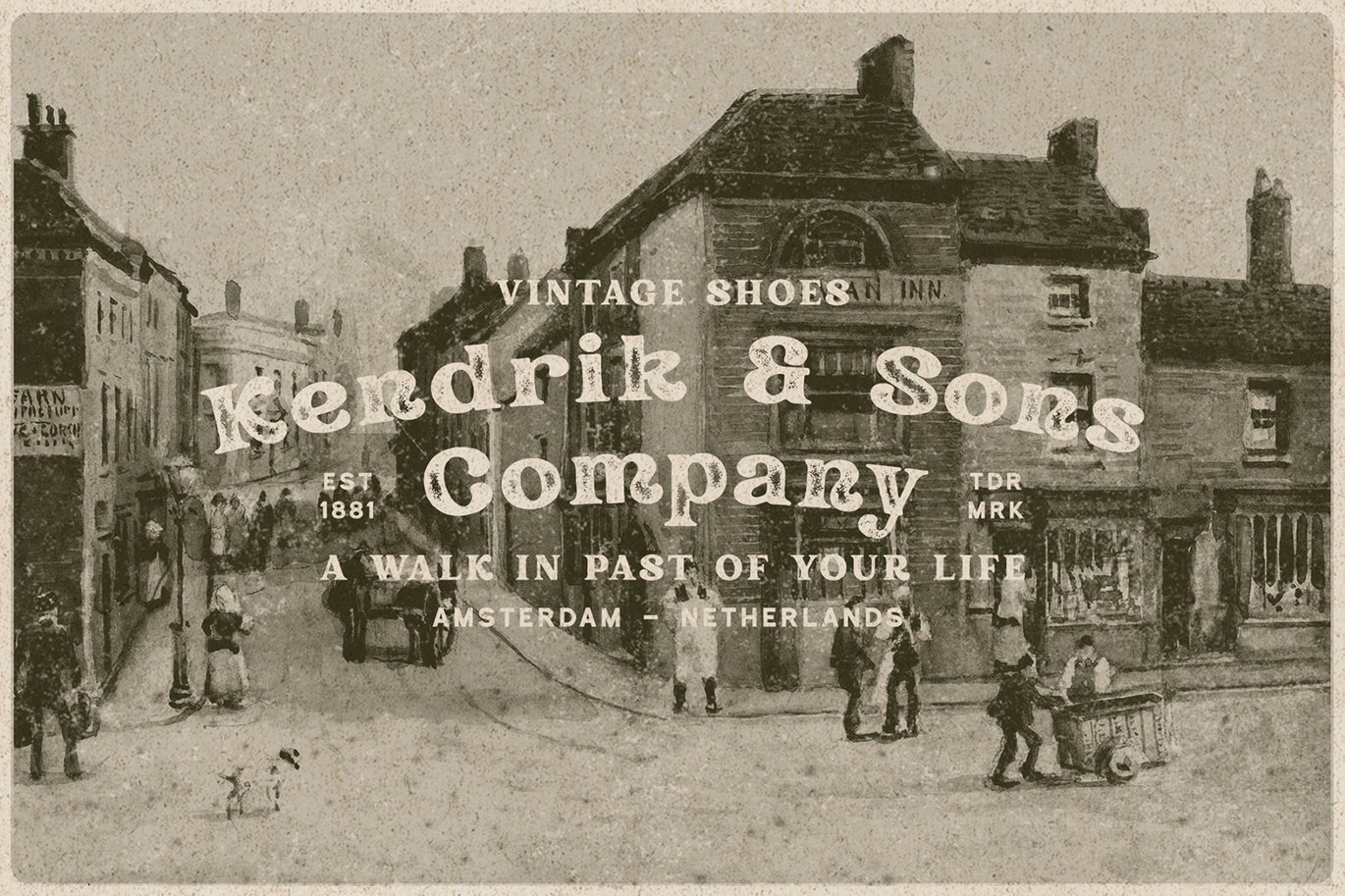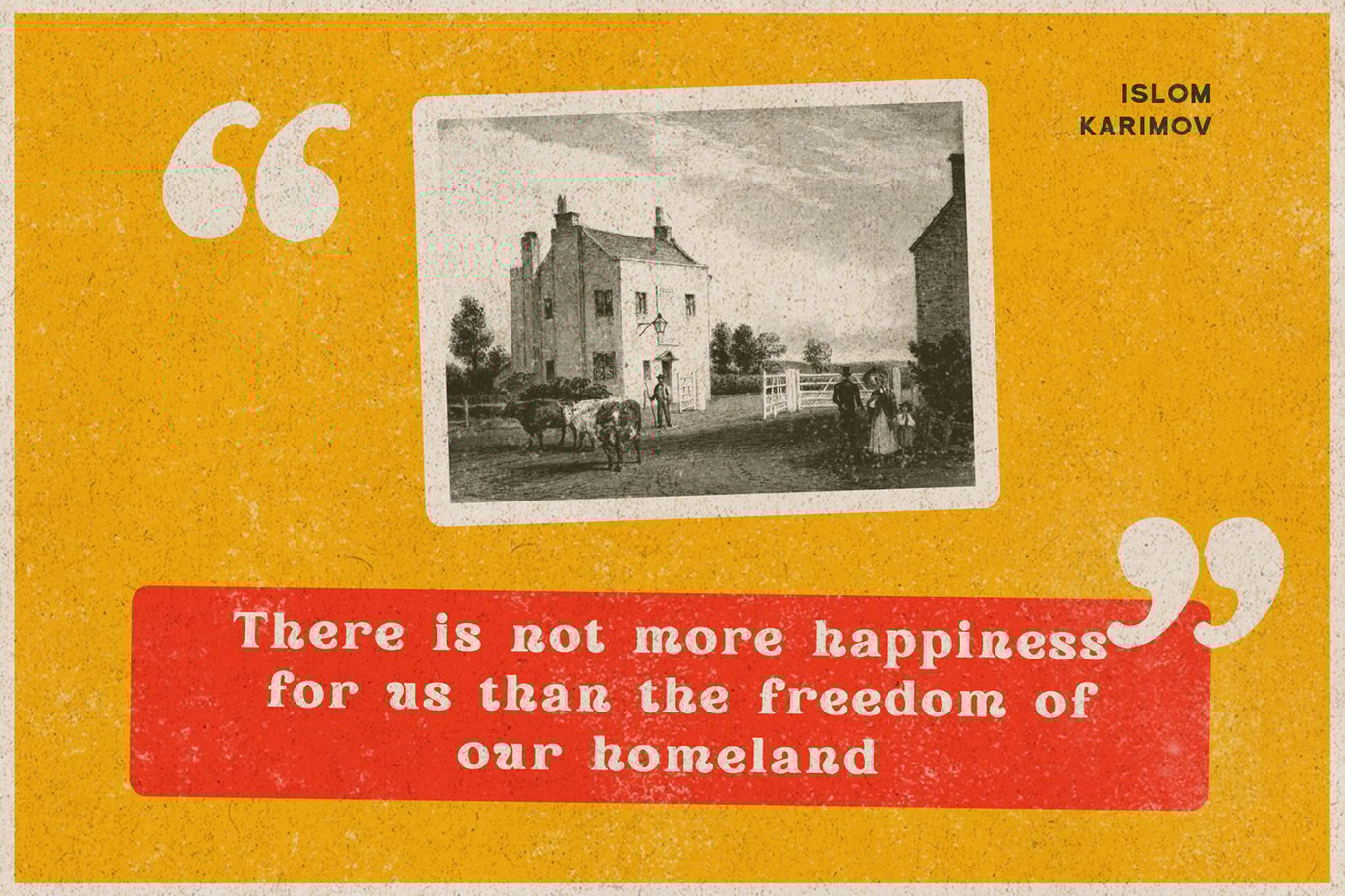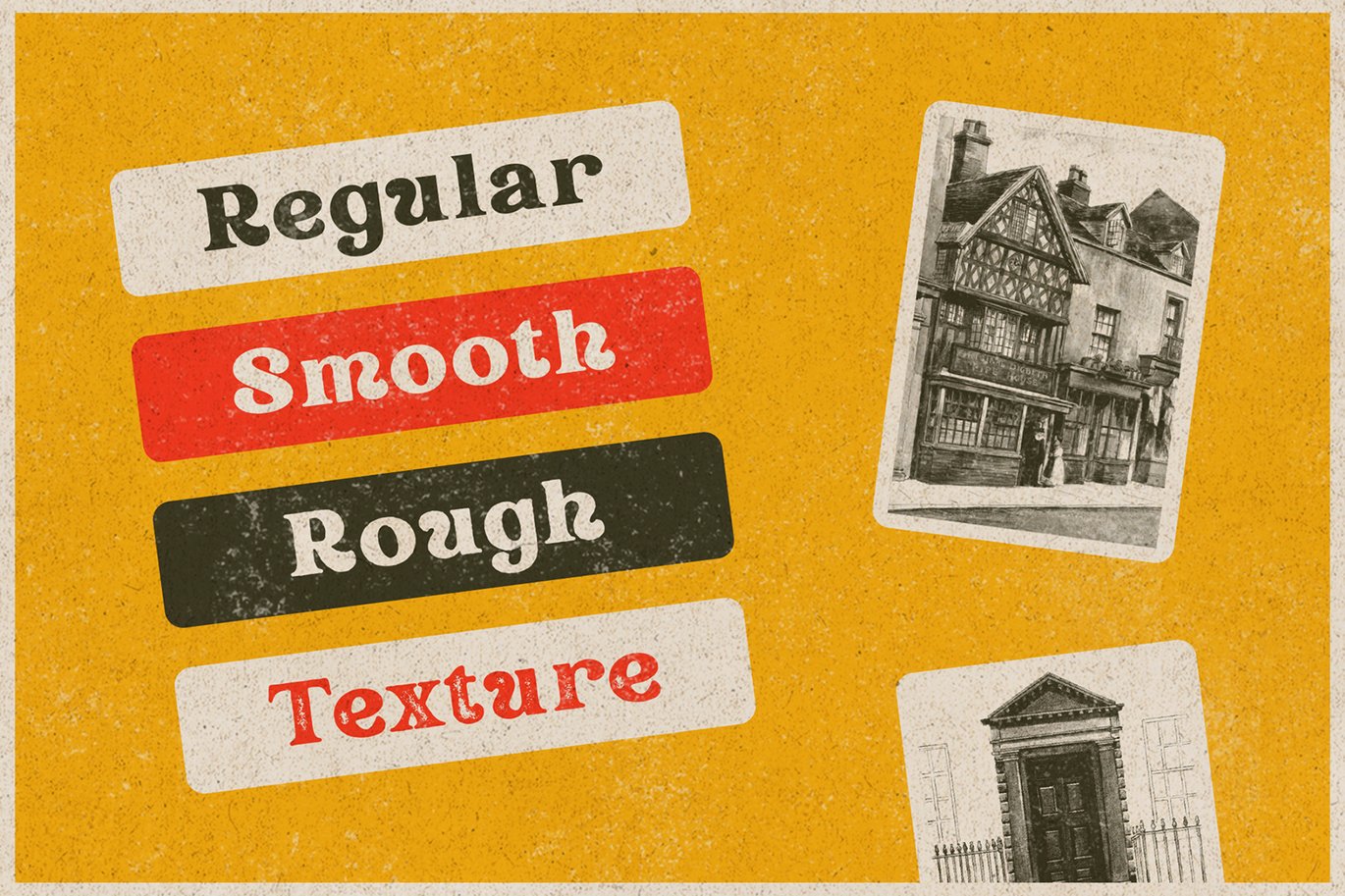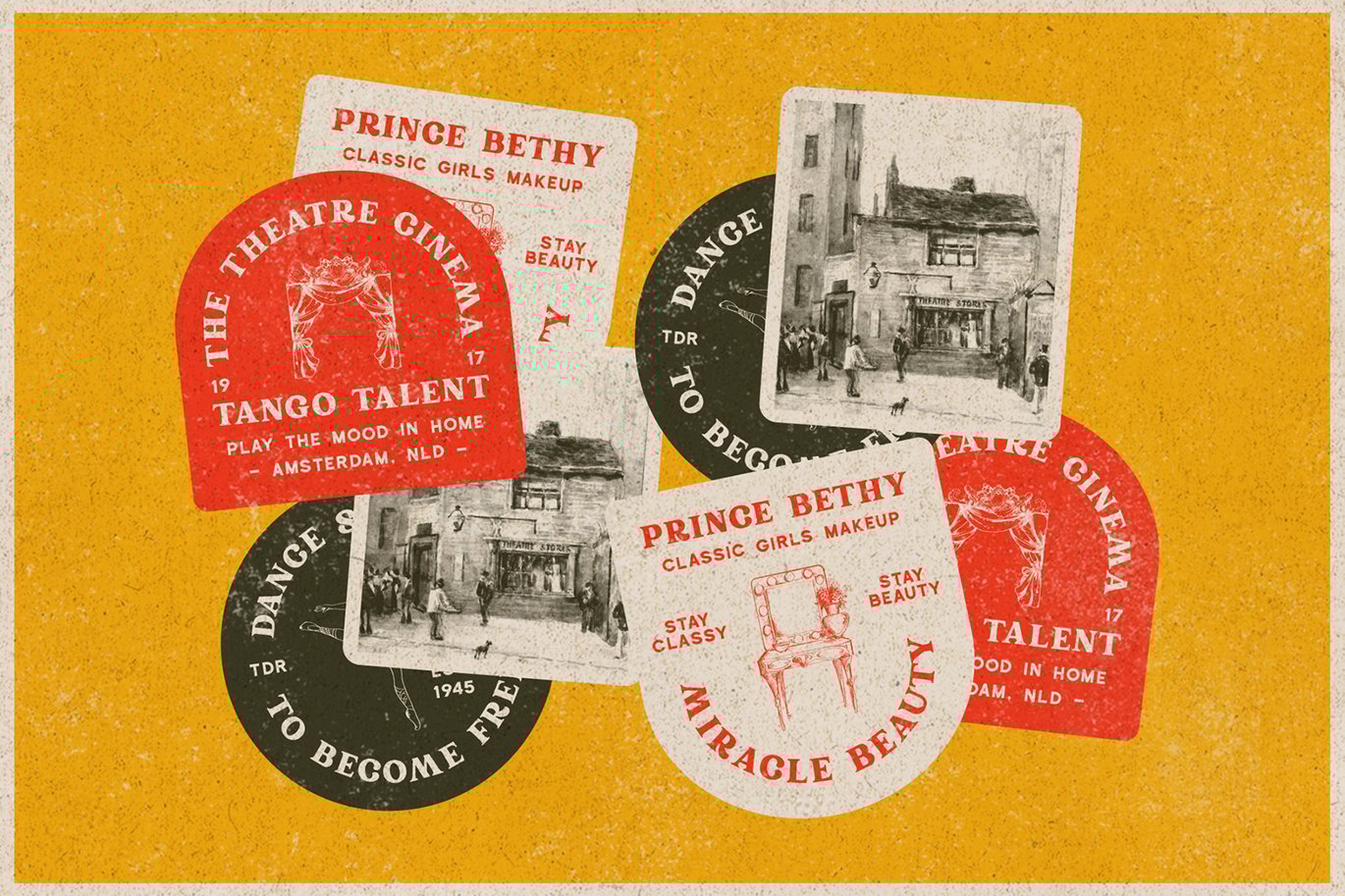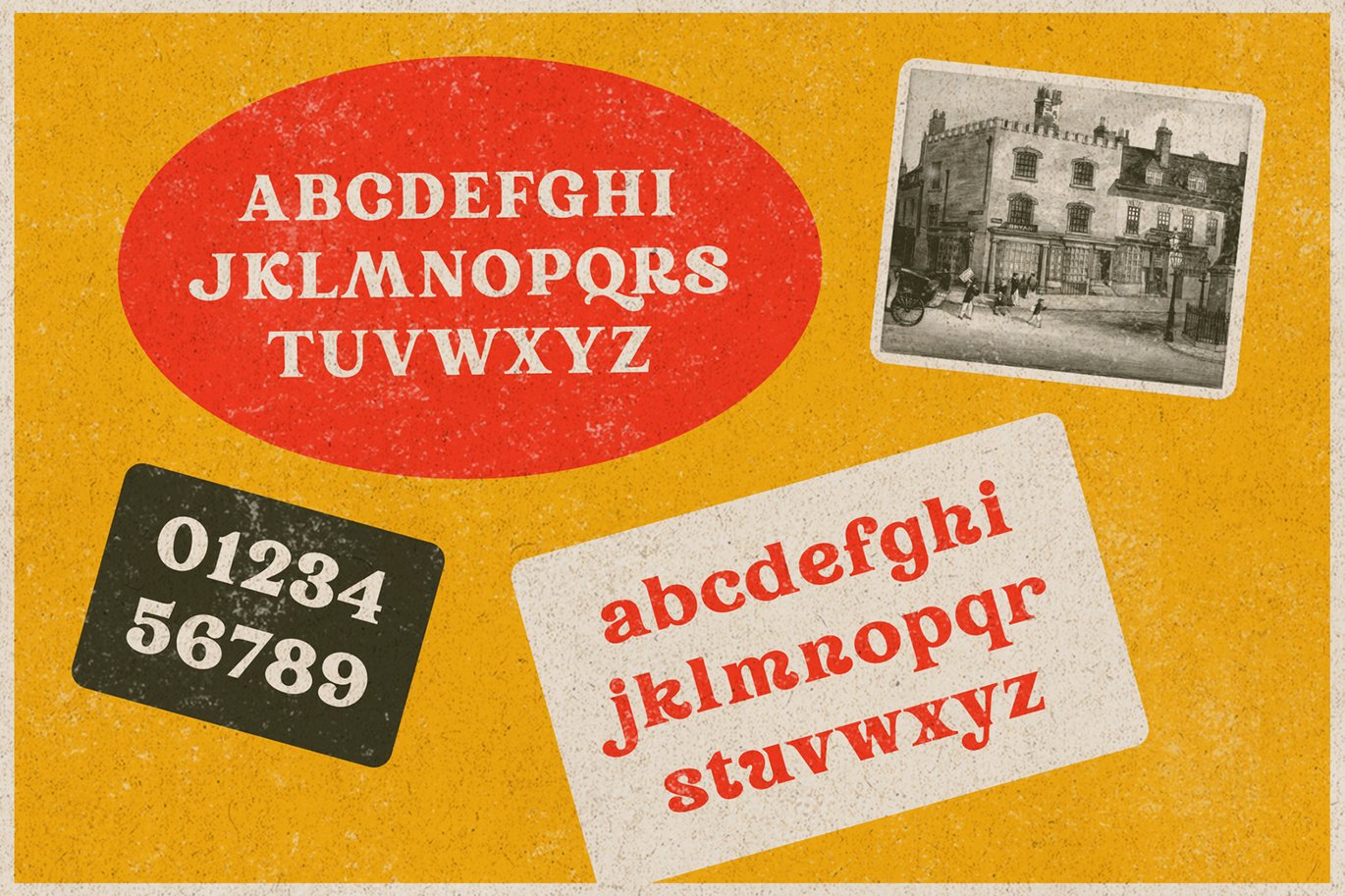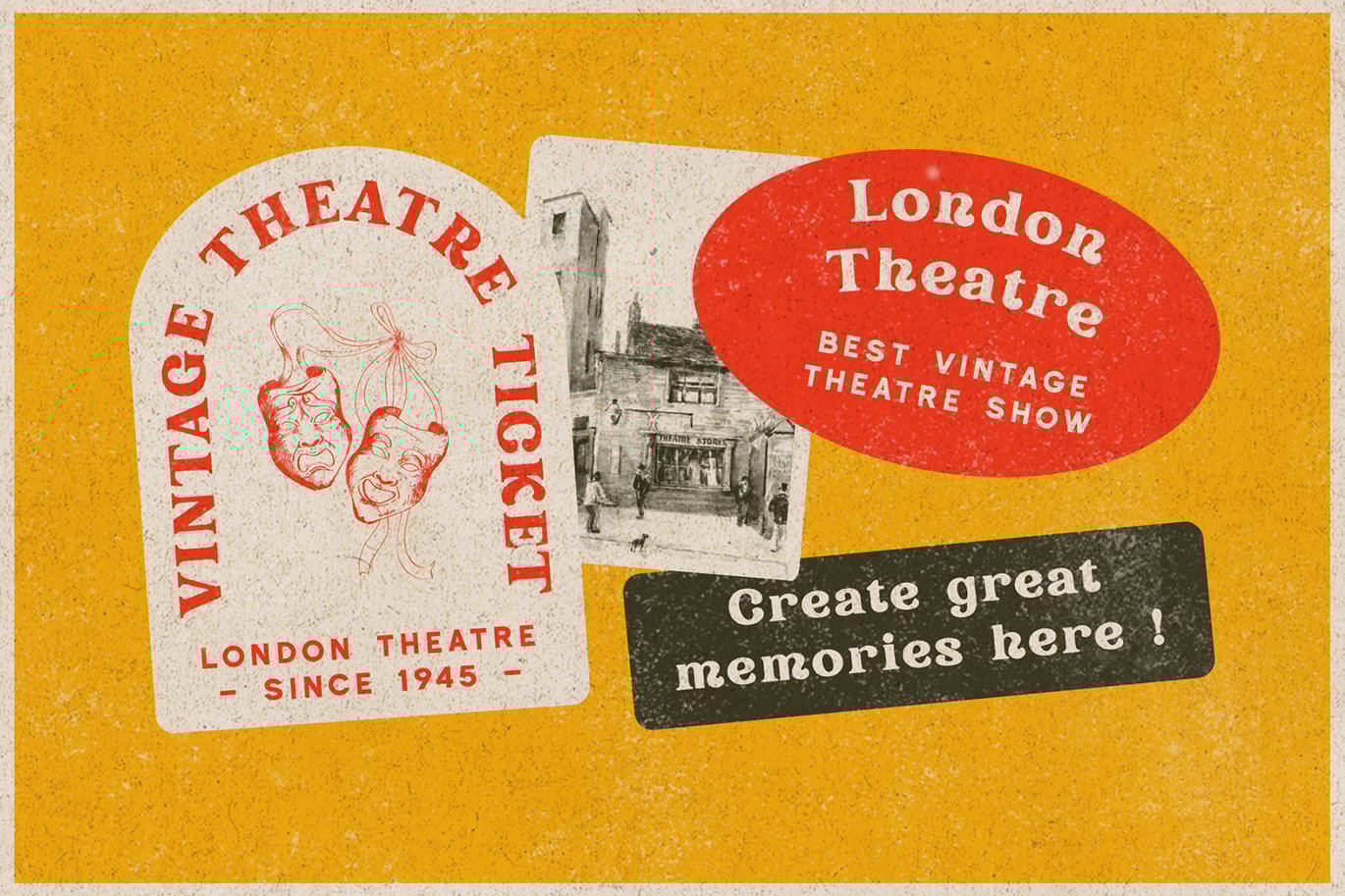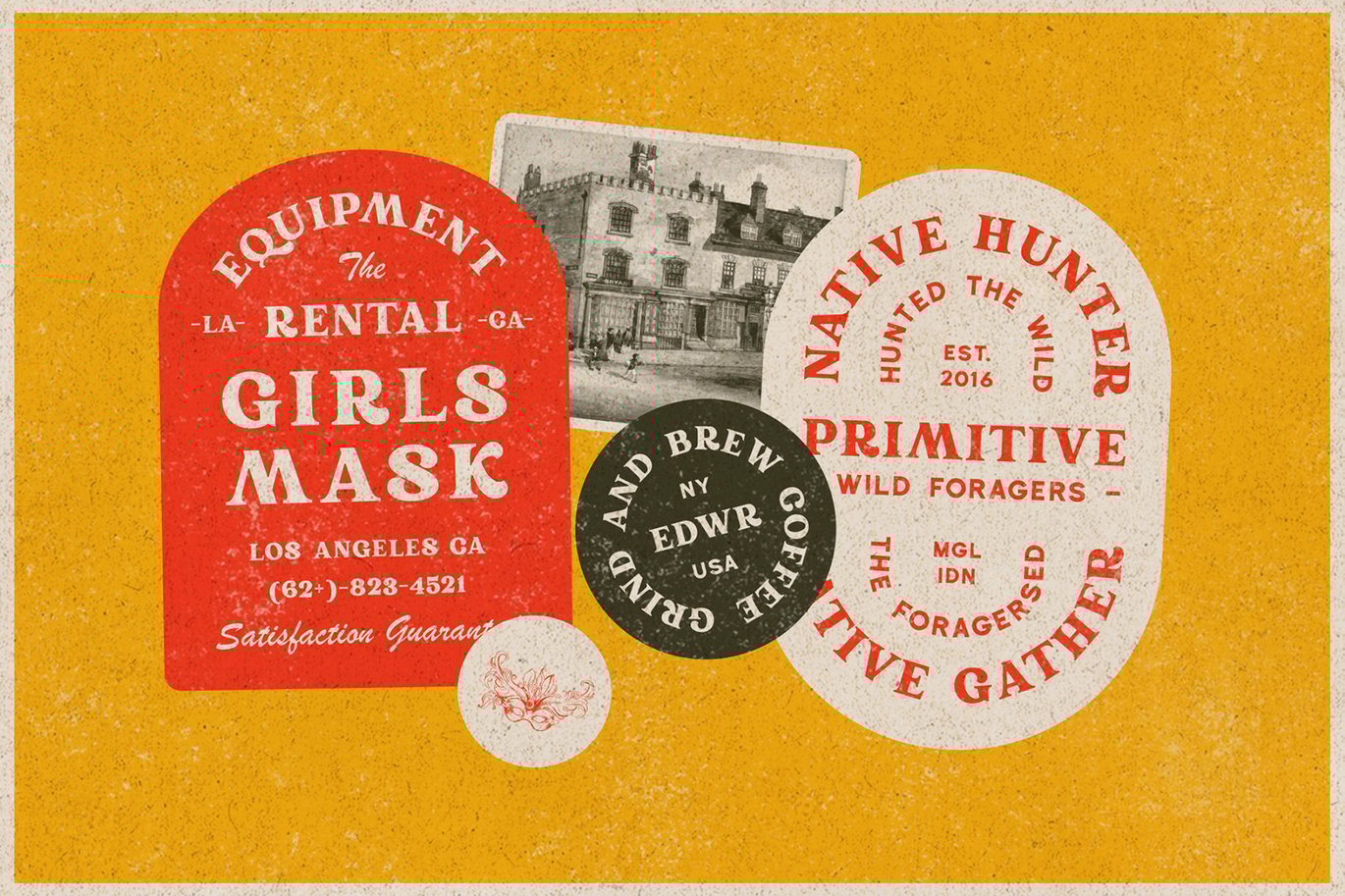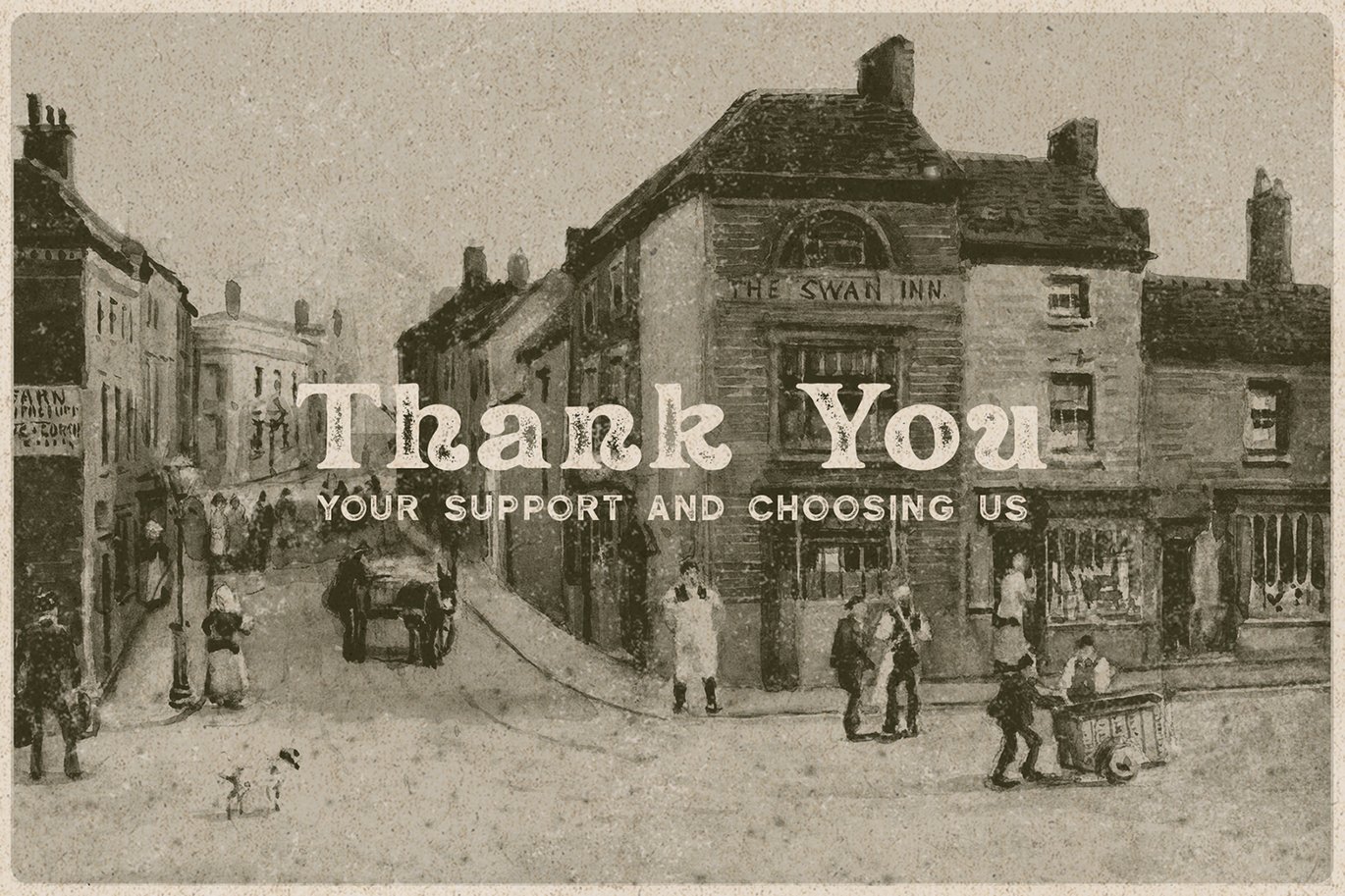
Rundeck – Vintage Texture Font
The Rundeck perfectly represents crafted stuff of serif display. This project was inspired by a beautiful retro music poster. The product includes 4 styles (regular, smooth, rough and texture). This matches applies in some designs such as the logotype, poster, label, badge, packaging, branding, and more custom design.
- 4 style typefaces (regular, smooth, rough and texture)
- Uppercase, lowercase, numeral, punctuation and symbol